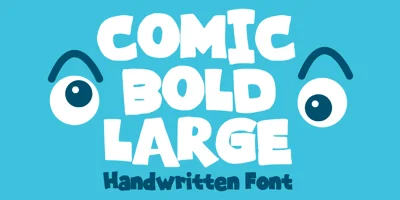
Comic Bold Large Font
Comic Bold Large Font is perfect for children's comic books, superhero graphic novels, cartoon animation titles, playful educational materials, fun party invitations, comic strip dialogue, vibrant social media graphics, and entertaining youth-oriented publications.
What makes Comic Bold Large Font exciting is its oversized playful energy that captures the dynamic excitement of comic book action through bold, larger-than-life letterforms. The exaggerated character proportions and cartoon-inspired aesthetics create an atmosphere of fun and adventure that instantly connects with audiences seeking entertainment and visual excitement.
Comic Bold Large Font family includes regular, extra bold, outline, shadow, and super versions, plus comic bubble ornaments, cartoon symbols, and playful decorative elements that enhance the entertaining typography experience with authentic comic book appeal.
Power up your designs with Comic Bold Large Font, the ultimate choice for projects demanding maximum visual impact and comic book authenticity. This dynamic typeface embodies the spirit of superhero adventures through letterforms that seem to leap off the page with explosive energy and cartoon magic. The expertly enlarged characters feature comic proportions that ensure outstanding visibility while projecting the kind of playful authority that makes every word feel like an exciting adventure waiting to unfold. Comic creators and entertainment brands consistently select this font for projects requiring authentic connection to comic book culture combined with visual impact that captures attention and sparks imagination. Its comprehensive collection of cartoon elements provides unlimited possibilities for creating memorable experiences that celebrate the joy and excitement of comic storytelling with genuine enthusiasm and creative energy. Experience the transformative power of oversized comic typography that elevates ordinary communications into expressions of pure entertainment, establishing your brand as a source of fun and adventure in today's competitive entertainment landscape where boldness and playfulness determine audience engagement.